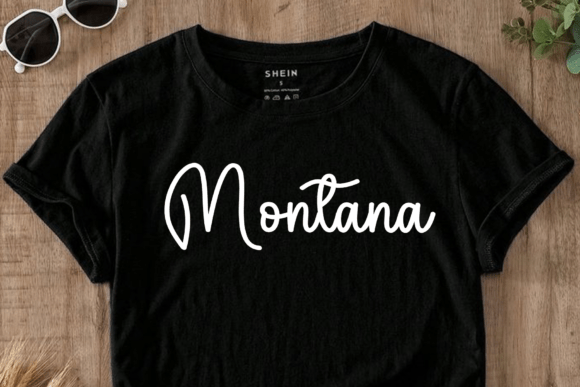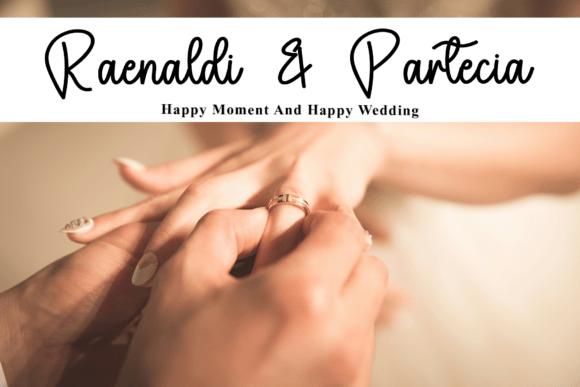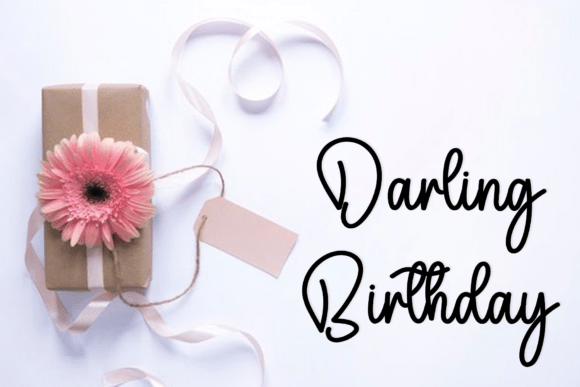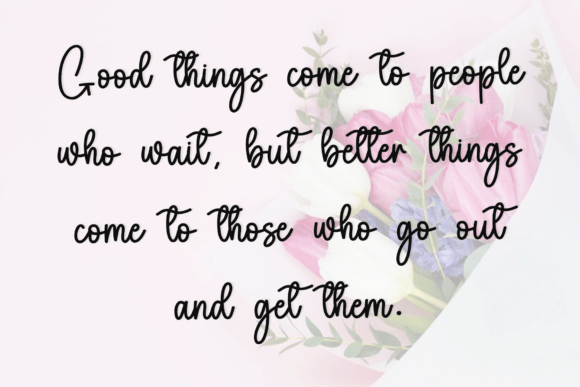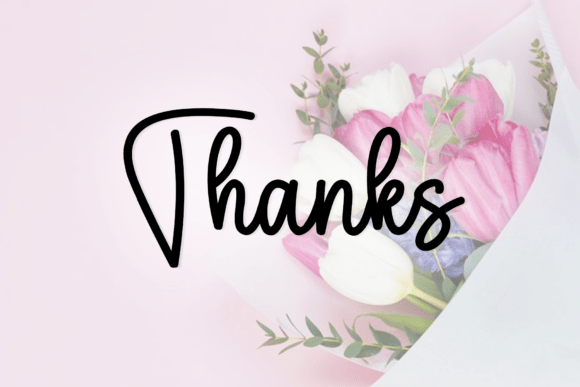
Unlocking the Art of Sophisticated Design with Flowerday Font
Have you ever sat in a quiet moment, surrounded by blank paper and a steady hand, waiting for the perfect idea to bloom? That’s exactly where the magic happens for designers – in the quiet moments of creation. And for those who crave a touch of elegance and sophistication in their work, there’s one font that stands out from the rest: Flowerday Font.
This exquisite handwritten script font is a masterclass in refined typography, perfect for luxury wedding stationery, intimate event branding, high-end editorial signatures, and sophisticated lifestyle photography overlays. With Flowerday Font, designers can elevate their work to new heights, creating a lasting impression on their audience. Its value lies in its ability to convey sophistication, luxury, and whimsy – a perfect blend for any high-end design project.
Key Features of Flowerday Font
- Unique Characteristics: Flowerday Font features a unique blend of modern and vintage elements, with intricate floral patterns and elegant lines, making it perfect for designs that require a touch of sophistication and whimsy.
- Kerning and Ligatures: Flowerday Font includes advanced kerning and ligature pairs, ensuring that text sets are rendered with precision and beauty, even at small font sizes.
Flowerday Font Review
Flowerday Font is a beautiful script font that I have had the pleasure of working with. It’s perfect for adding a touch of elegance to any design project ✨. I love how the flowing lines and rounded letters evoke a sense of whimsy and romance.
- The font’s irregularities and inconsistencies give it a unique, handmade feel that sets it apart from more traditional fonts.
- Flowerday Font is highly versatile and can be used for a wide range of projects, from wedding invitations to branding materials.
- The font is well-suited for digital use, with clear and legible characters at various sizes and resolutions.
However, I do have some reservations about the font’s limitations ⚠️. While the font’s unique characteristics are a major strength, they can also make it difficult to read at very small sizes or in certain contexts.
Overall, I think Flowerday Font is a great addition to any designer’s toolkit. While it may not be suitable for every project, it’s perfect for those looking to add a touch of personality and whimsy to their designs. With some careful planning and execution, Flowerday Font can be a real showstopper.
Getting the Most Out of Flowerday Font
To get the most out of Flowerday Font, use it for titles and headings in your designs. The font’s elegant and whimsical style makes it perfect for adding a touch of sophistication to your content. Experiment with different font sizes and colors to create a visually appealing design.
Flowerday Font is commonly used for:
• Wedding invitations and stationery
• Baby shower invitations and decorations
• Garden-themed designs and packaging
• Whimsical and elegant branding and marketing materials